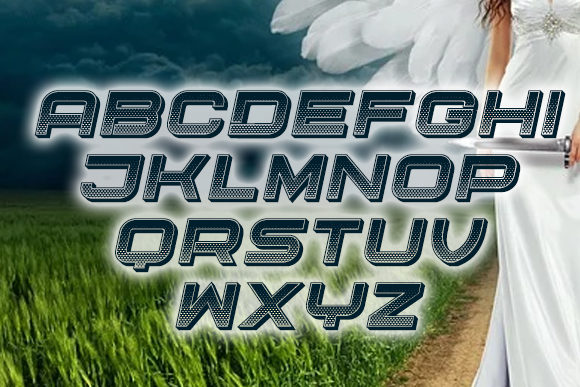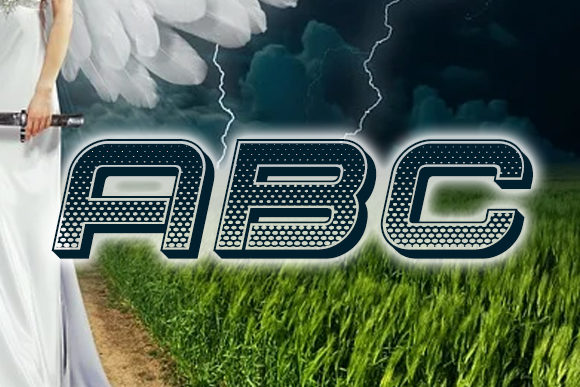
Introducing Angels Font: Elevate Your Designs with a Bold and Thick Lettered Display Font
Are you a designer or crafter looking for a font that can add a touch of drama and elegance to your creative projects? Look no further than Angels Font, a bold and thick lettered display font that’s sure to make your designs come alive. In this article, we’ll take a closer look at Angels Font, its features, and how you can use it to take your designs to the next level.
What is Angels Font?
Angels Font is a stunning display font that’s designed to make a statement. With its bold and thick lettering, this font is perfect for creating eye-catching headlines, titles, and captions that demand attention. Whether you’re working on a graphic design project, crafting a logo, or creating social media graphics, Angels Font is the perfect choice.
Key Features of Angels Font
So, what makes Angels Font so special? Here are some of its key features:
- Bold and Thick Lettering: Angels Font features bold and thick lettering that’s perfect for creating eye-catching headlines and titles.
- Display Font: This font is specifically designed as a display font, making it perfect for use in graphic design projects, logos, and social media graphics.
- Elegant and Dramatic: Angels Font has an elegant and dramatic feel that’s sure to add a touch of sophistication to your designs.
- Easy to Read: Despite its bold and thick lettering, Angels Font is easy to read, making it perfect for use in a variety of design projects.
How to Use Angels Font in Your Designs
Now that we’ve covered the features of Angels Font, let’s take a look at how you can use it in your designs. Here are some ideas to get you started:
- Graphic Design Projects: Use Angels Font to create eye-catching headlines and titles for your graphic design projects, such as brochures, posters, and flyers.
- Logo Design: Angels Font is perfect for use in logo design, particularly for businesses that want to make a bold statement.
- Social Media Graphics: Use Angels Font to create eye-catching social media graphics, such as Facebook posts, Instagram captions, and Twitter headers.
- Crafting Projects: Angels Font is also perfect for use in crafting projects, such as scrapbooking, card making, and journaling.
Tips for Getting the Most Out of Angels Font
Here are some tips for getting the most out of Angels Font:
- Use it Sparingly: Angels Font is a bold and attention-grabbing font, so use it sparingly to avoid overwhelming your designs.
- Pair it with Other Fonts: Angels Font pairs well with other fonts, so experiment with different combinations to find the perfect look for your designs.
- Experiment with Colors: Angels Font looks great in a variety of colors, so experiment with different colors to find the perfect look for your designs.
Angels Font is a bold and thick lettered display font that’s perfect for designers and crafters looking to add a touch of drama and elegance to their creative projects. With its elegant and dramatic feel, easy readability, and versatility, Angels Font is sure to become a favorite in your font collection. So why wait? Add Angels Font to your favorite creative ideas and notice how it makes them come alive!